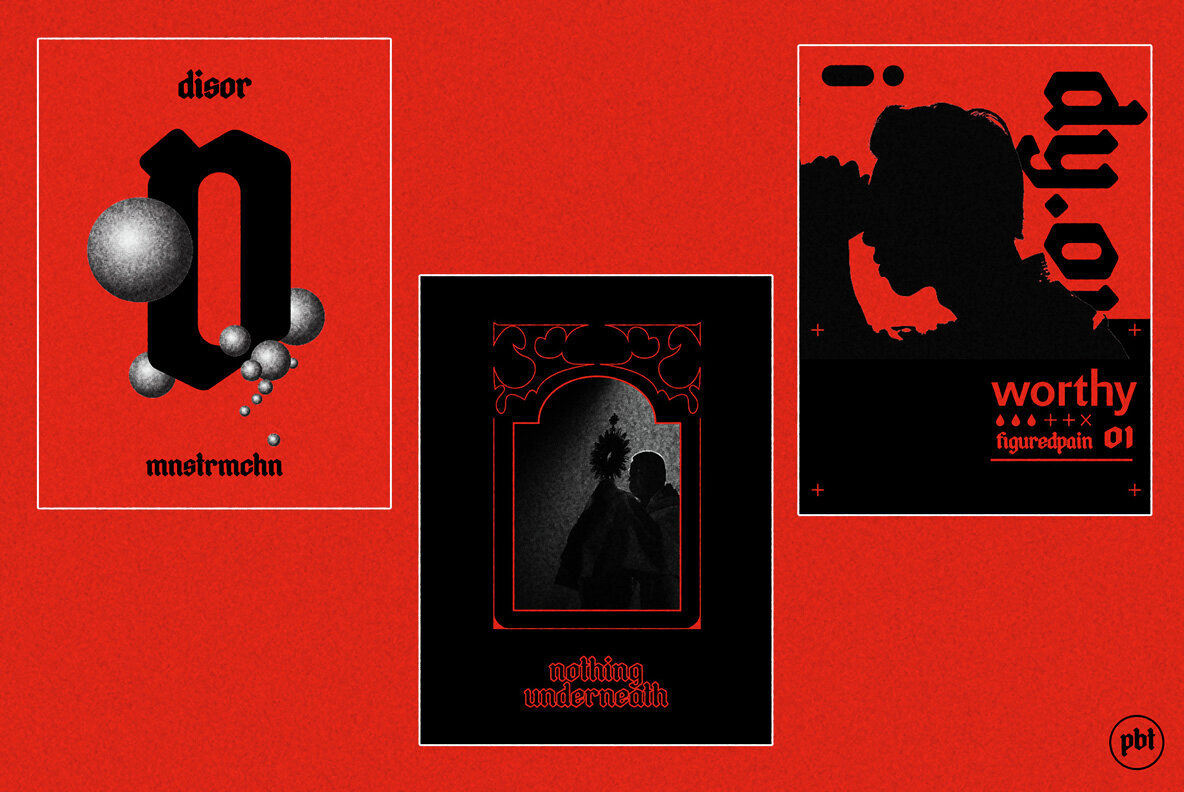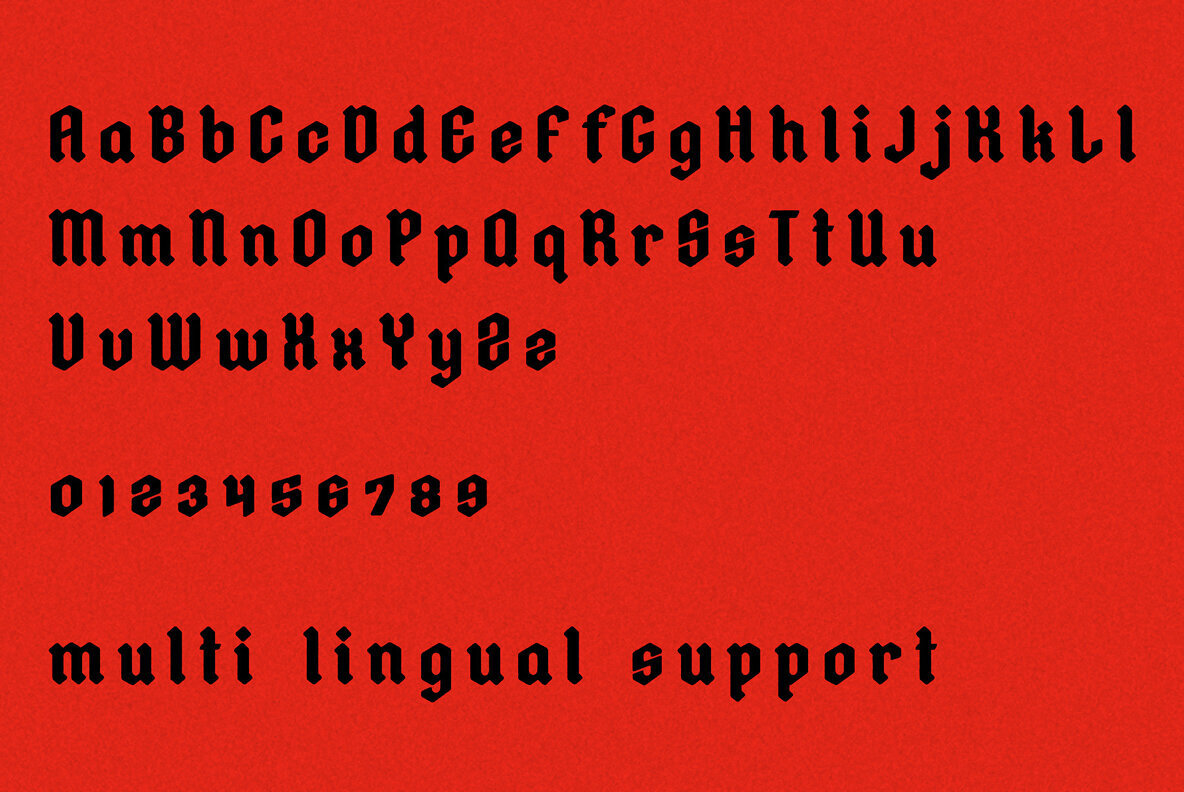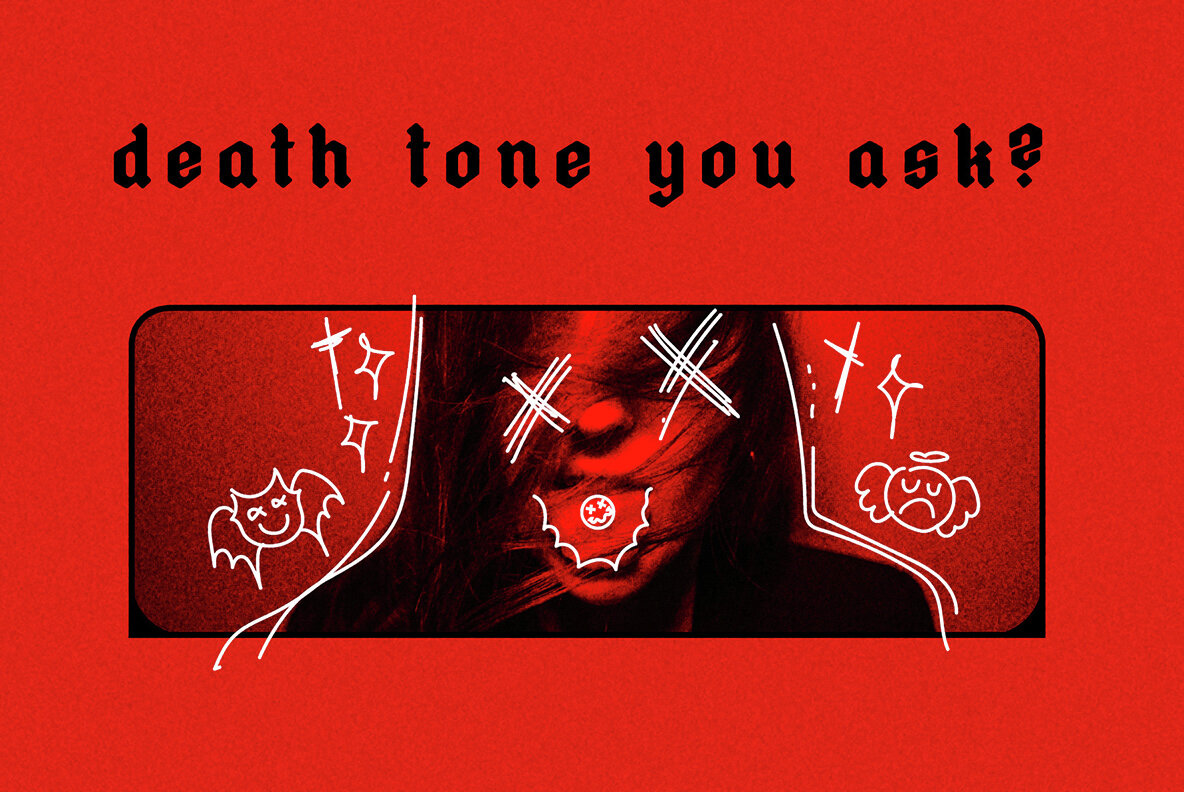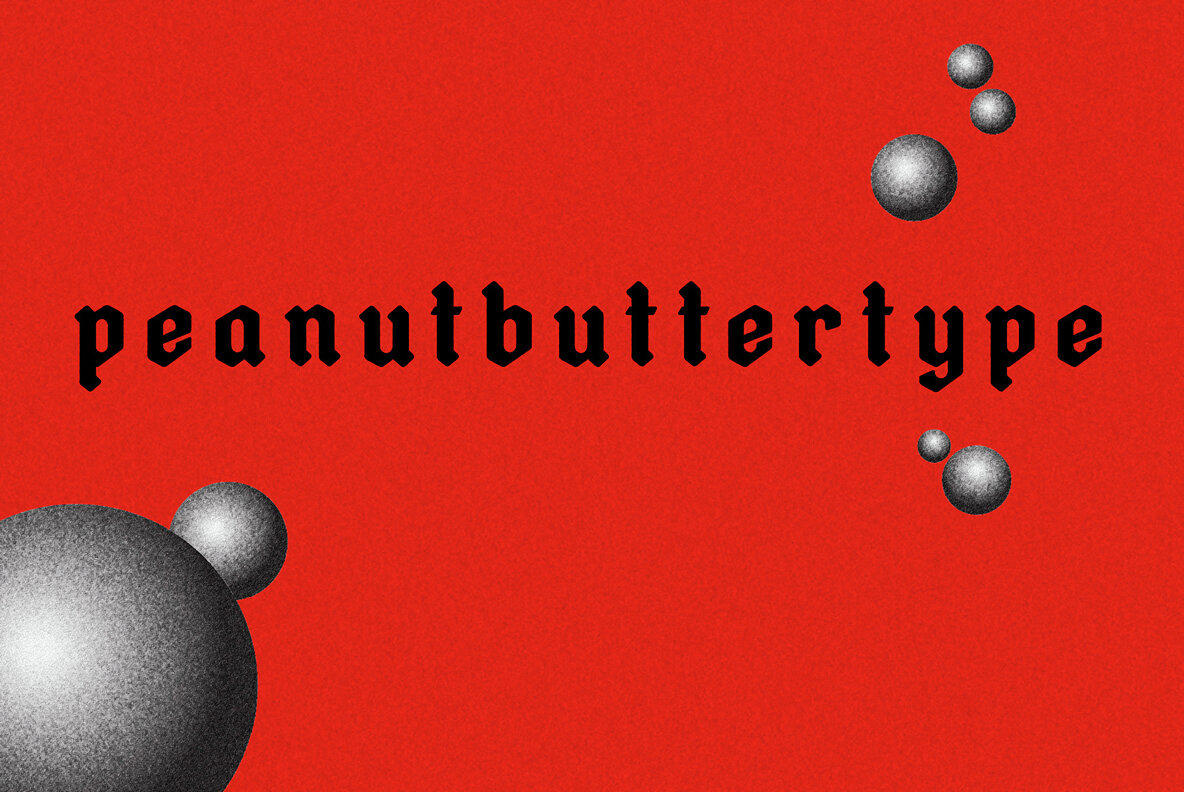
Disor 1
Disor Blackletter is a bold and striking reinterpretation of the classic gothic script, expertly blending traditional elegance with a modern edge. Characterized by its sharp, angular lines and intricate flourishes, this typeface adds a unique, ink-spilled chaos to any project. Whether you're designing ominous branding, rebellious logos, or attention-grabbing posters, Disor Blackletter commands a fierce presence.
Embracing a mysterious and dramatic aesthetic, Disor Blackletter captures a forbidden allure that defies convention. Ideal for projects seeking a rebellious tone, this typeface effortlessly combines the allure of medieval blackletter with a raw, untamed spirit. When your designs demand to stand out, Disor Blackletter provides the perfect dark and edgy flair.